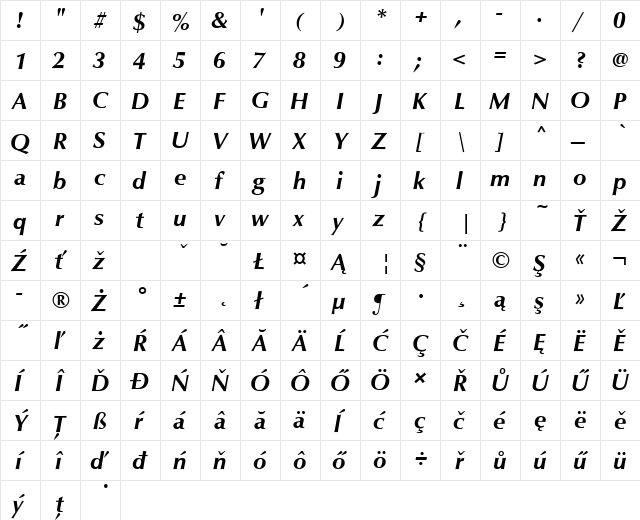
URWClassicoTEE Bold Italic Font Preview
Design Context for URWClassicoTEE Typeface
URWClassicoTEE has the warm character of retro typography — evoking diners, record sleeves, and the golden age of print advertising. Its italic angle brings a sense of urgency and motion to the letterforms. The heavy weight commands attention and anchors typographic hierarchies.
Ideal for diner signage, record shop branding, 70s/80s-themed projects, and heritage product labels.
Font Pairing: Combine URWClassicoTEE with a simple slab or neutral sans — period-accurate companions reinforce the vintage feel without competing for attention.
Pro Tip: Lean into URWClassicoTEE's period character by pairing it with aged paper textures, muted colour palettes, and vintage illustration styles.